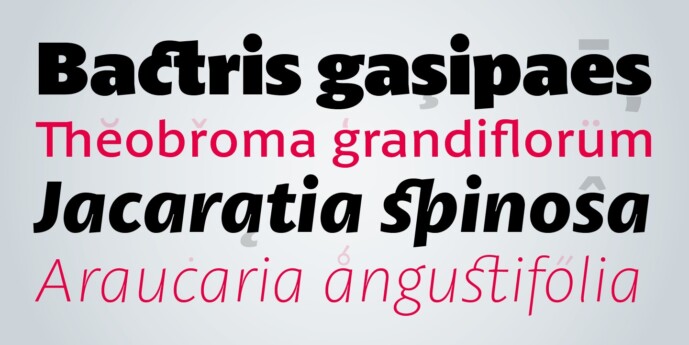
Pétala Pro Font Family
Pétala Pro Font Family, took its first steps almost ten years ago. Since then, the quest for perfection has forced several interruptions. It was necessary recalculate the route, tread other ways, discover new maps, and make easy curves. In the end, a new milestone on typeface design was reached. Pétala Pro combines readability with a gentle but strong personality. The smooth and balanced forms shares space with expressive ink traps. The 18 styles of the family – from Thin to Black – allow the flexibility needed to complex design briefs. When designing the different weights, rather than automated solutions, ​​subtle adjustments were made to value the optical qualities of each style. Such care makes all the difference under extreme conditions. The wide variety of alternates makes Pétala Pro even more versatile. All the styles come with a lot of advanced OpenType features such as stylistics sets, localized forms, contextual alternates, ligatures, small caps, numbers, fractions and more. PétalaPro brings your message with efficiency and personality for a multi-language environment and in any medium or support, such as video, mobile and computers screens. Pétala Pro is the ideal choice for editorial, advertising, branding and corporate identity.